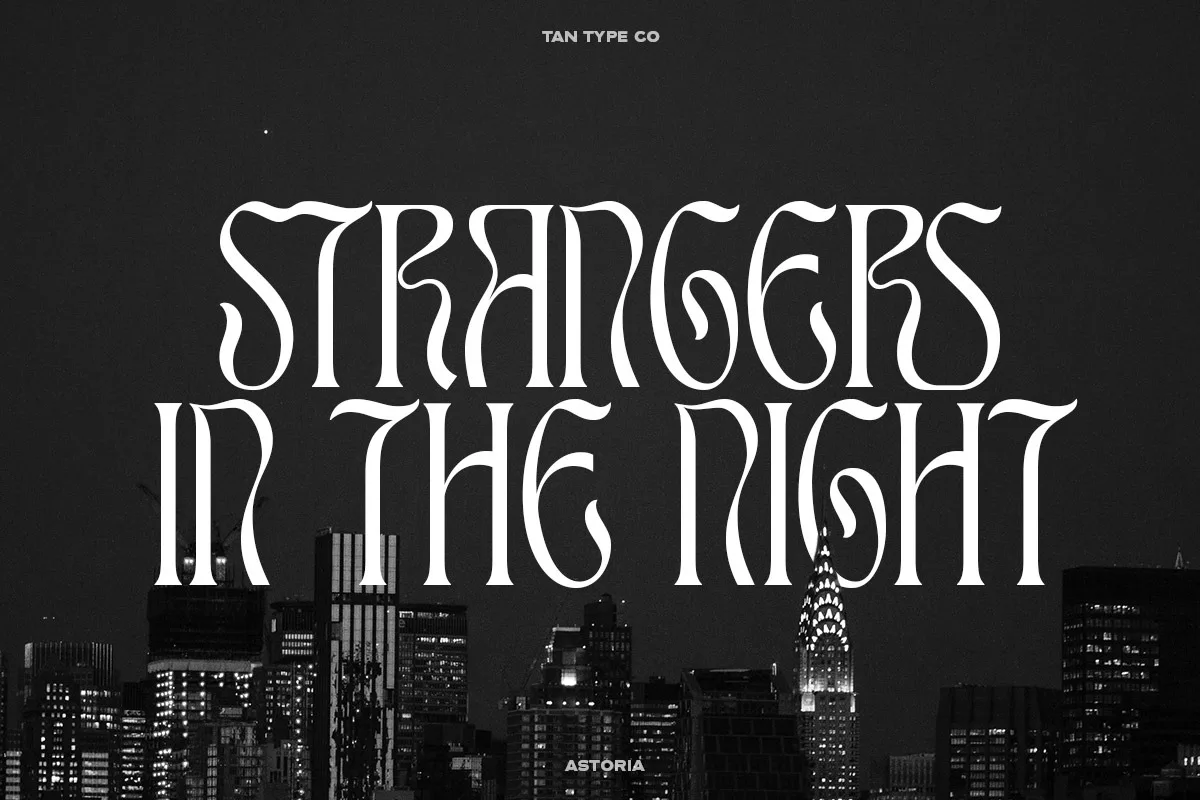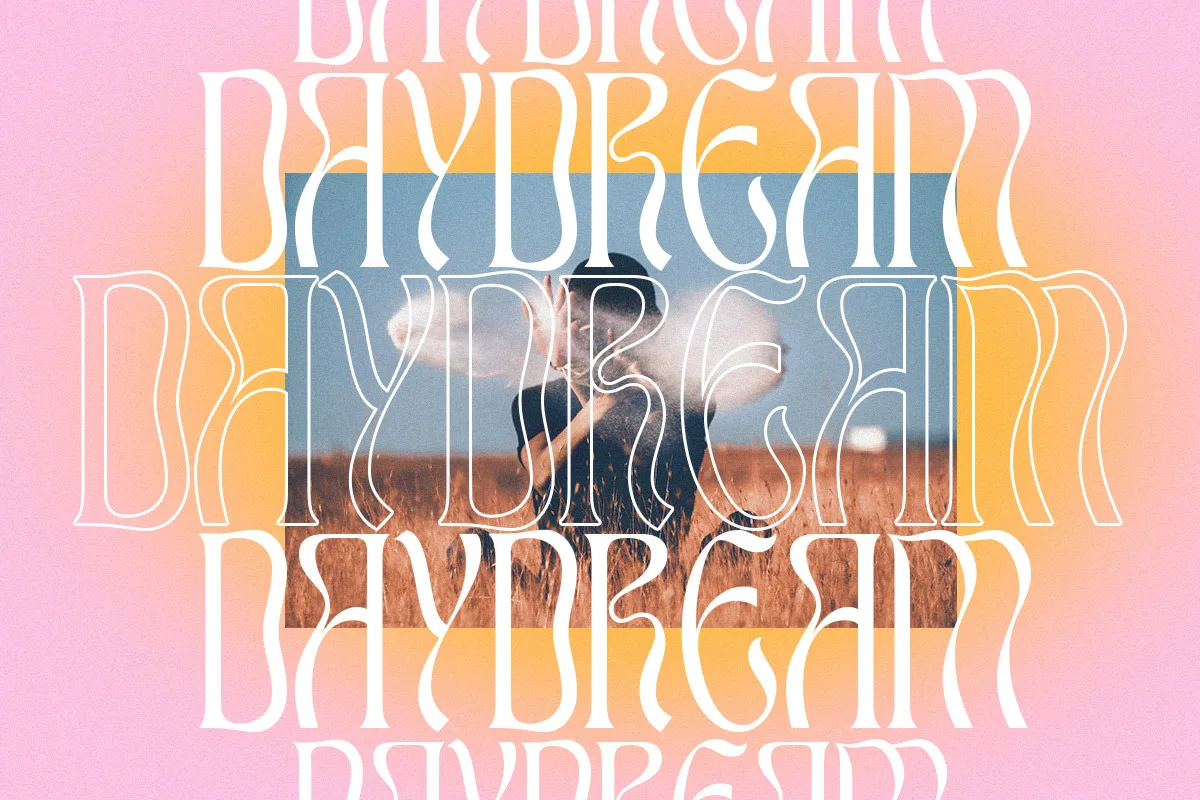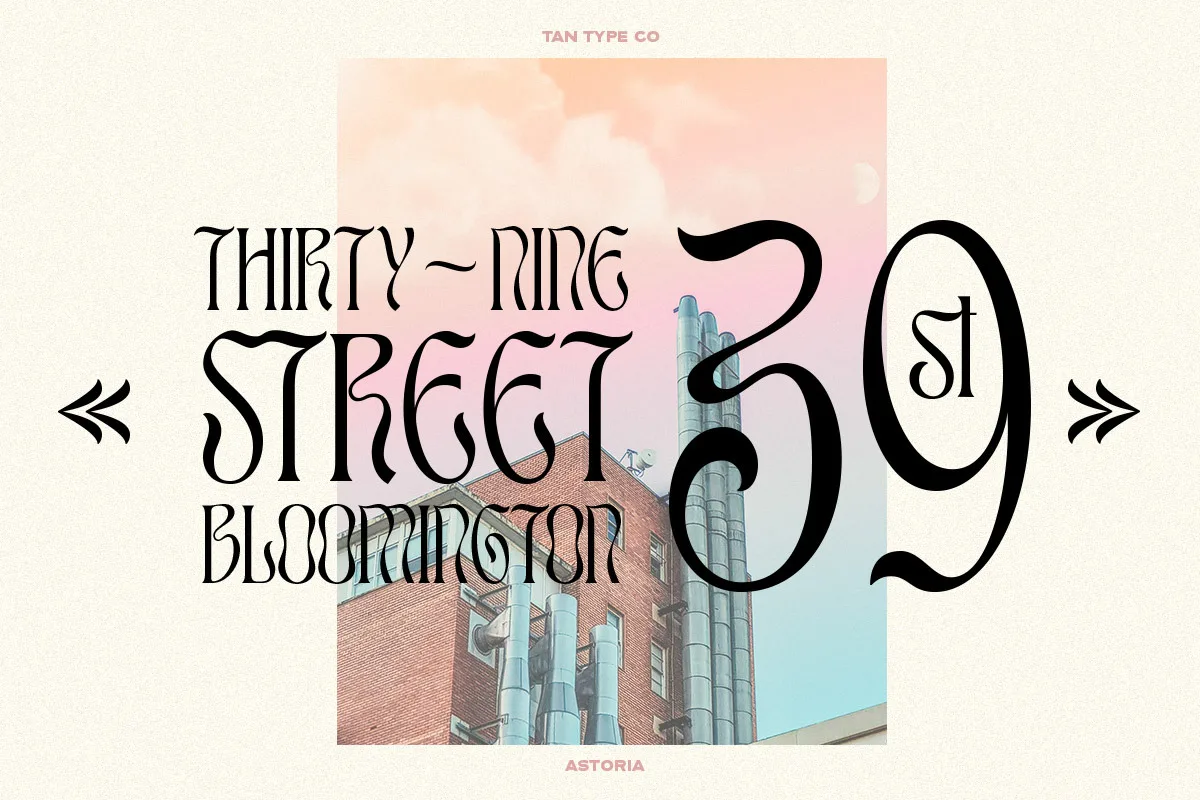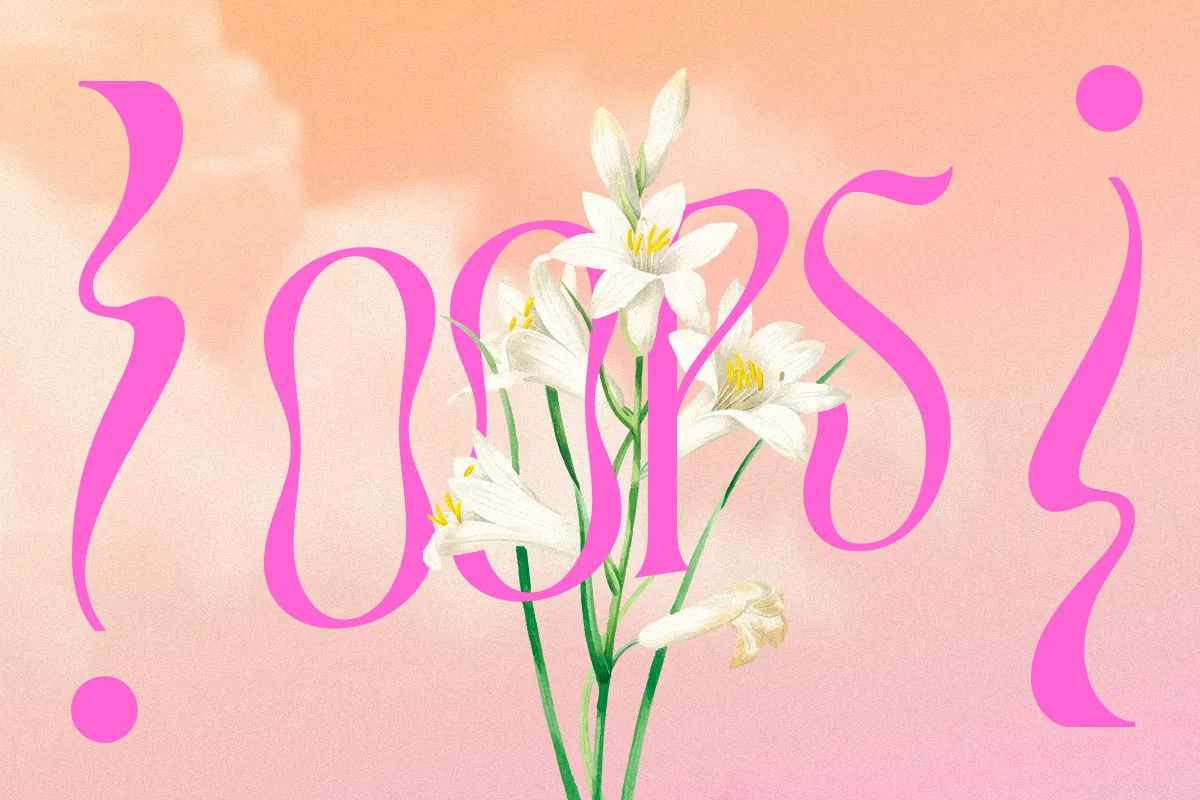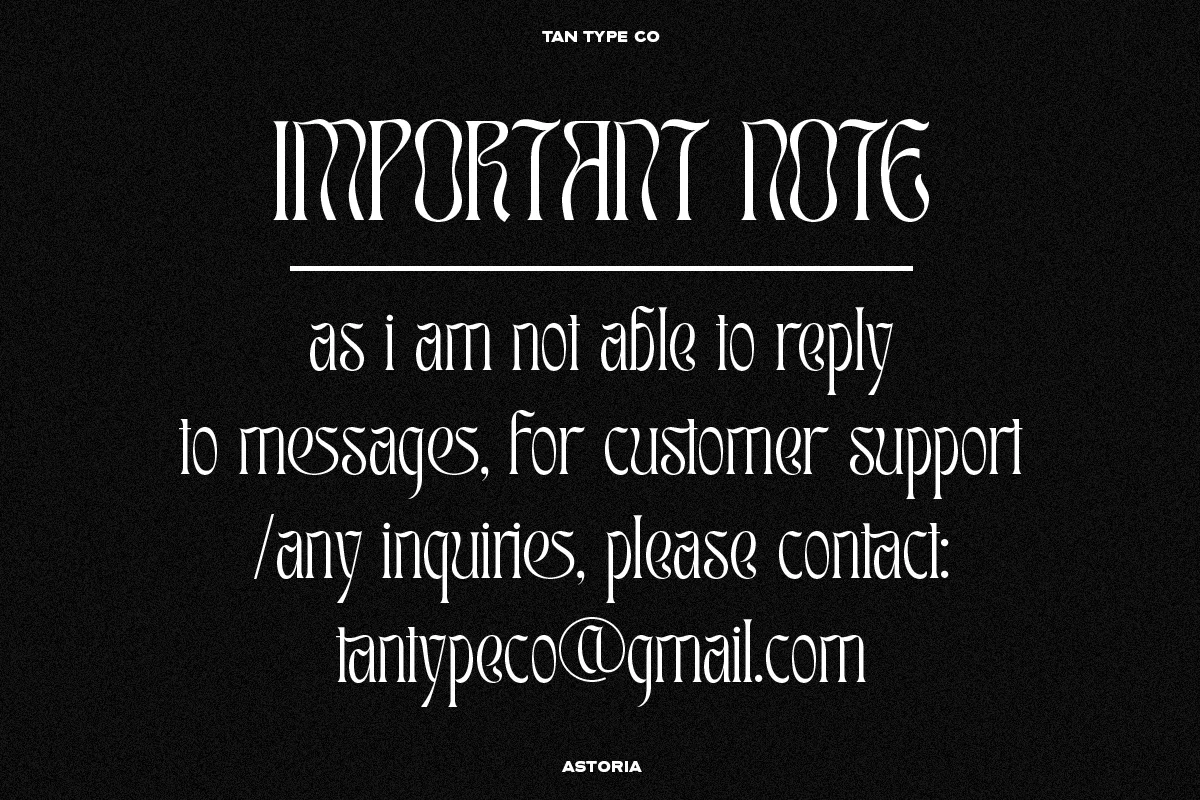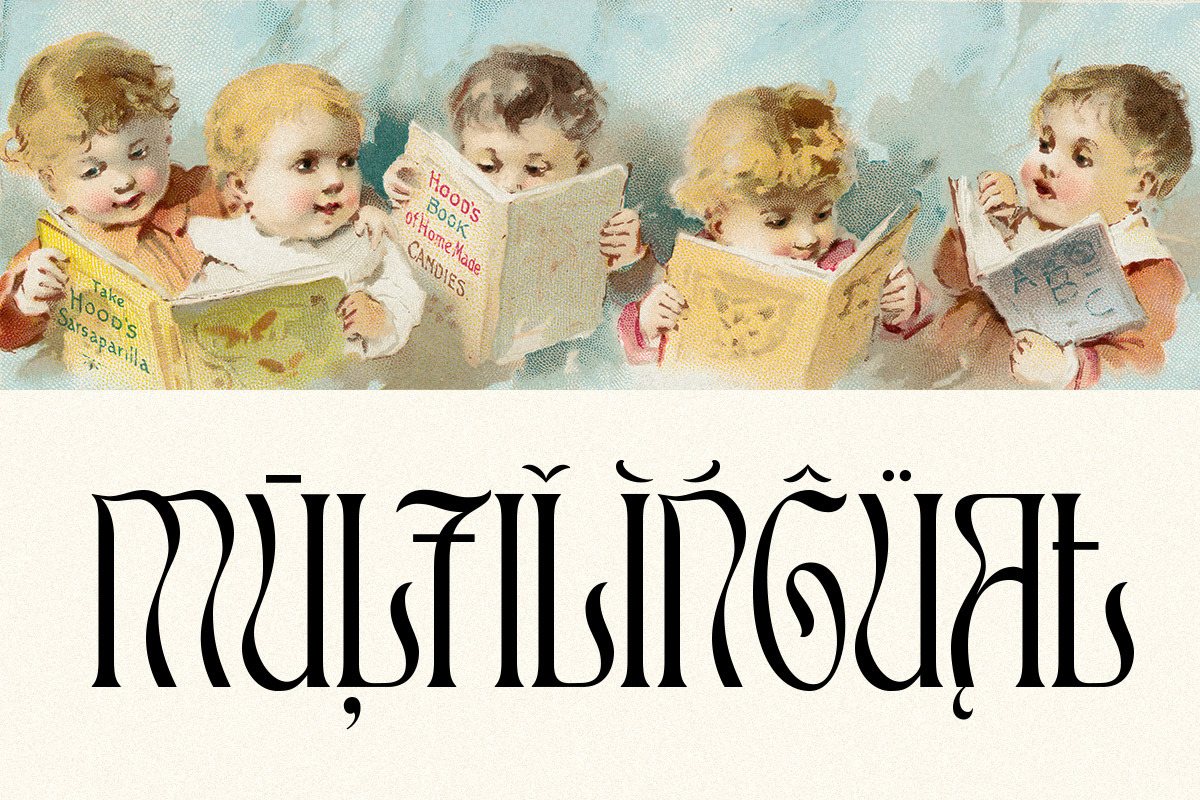
Tan Astoria is a quirky display serif that spells fun. With its psychedelic look, it would look perfect when paired with a conventional serif/sans serif. It can be used for masthead, poster, business identity, you name it.
With its playful, psychedelic character, Tan Astoria works well for fashion branding, posters, album art, and any project that needs a retro hipster edge. As its creator suggests, pair it with a plain serif or sans serif to let the display face pop.
Tan Astoria Font: Display Serif